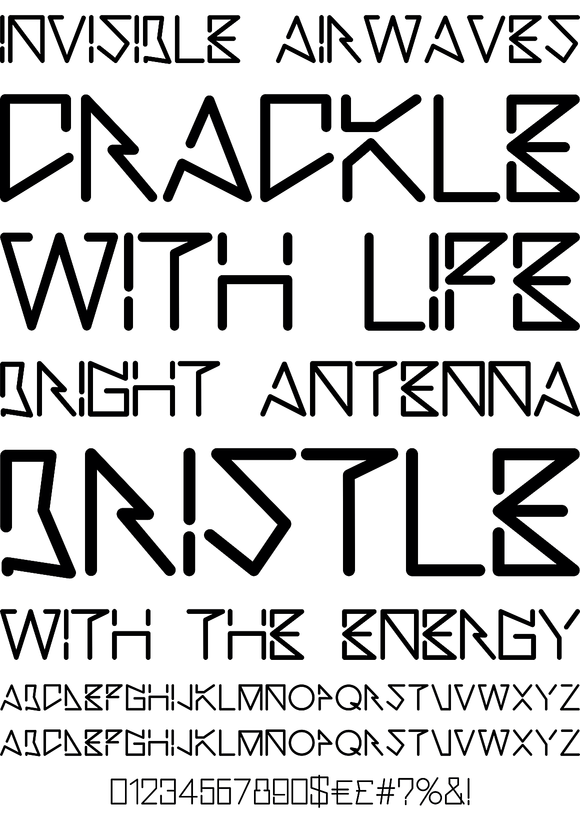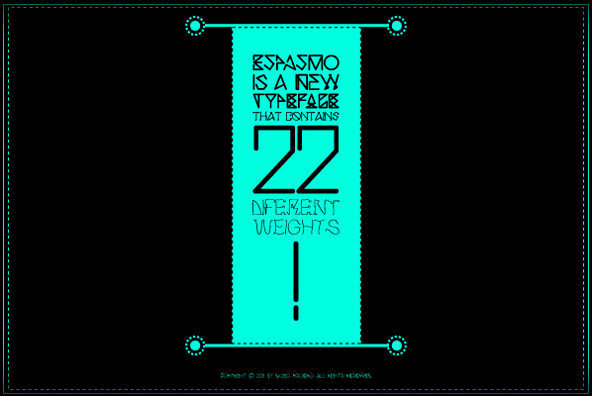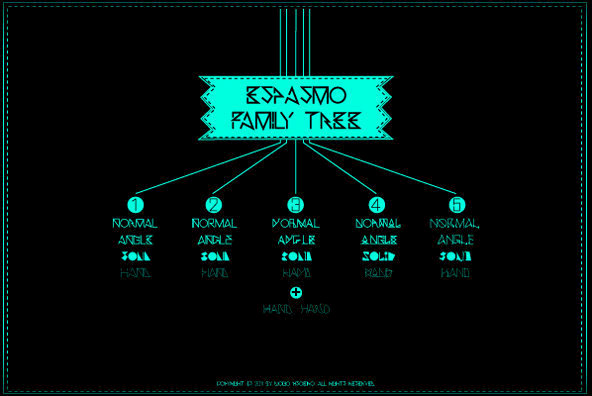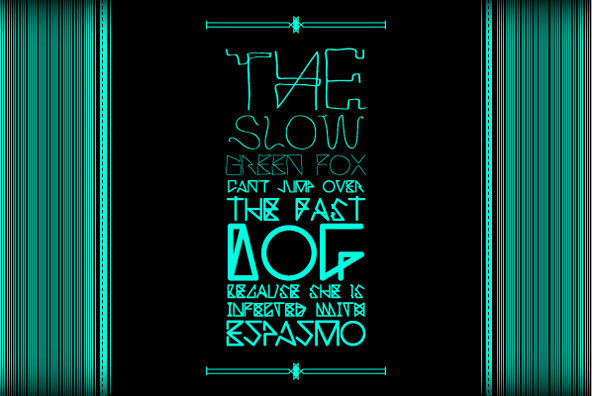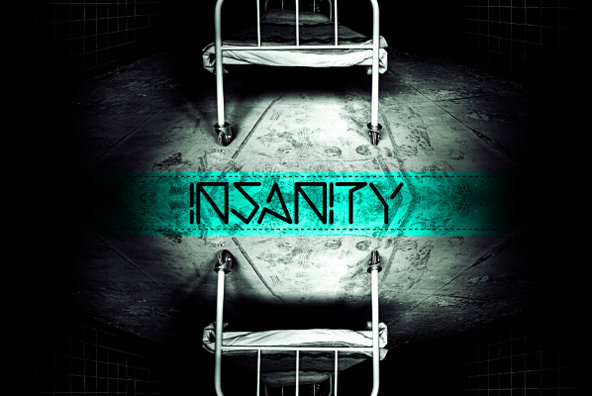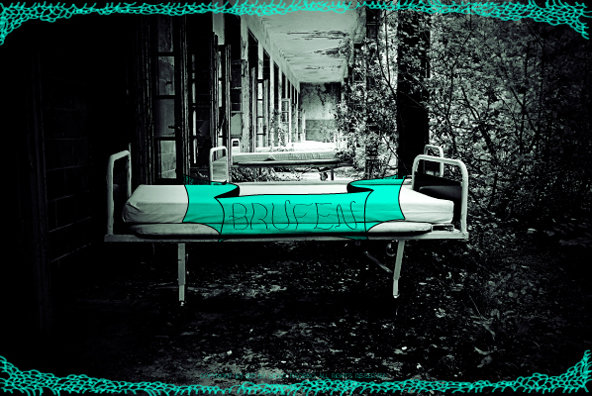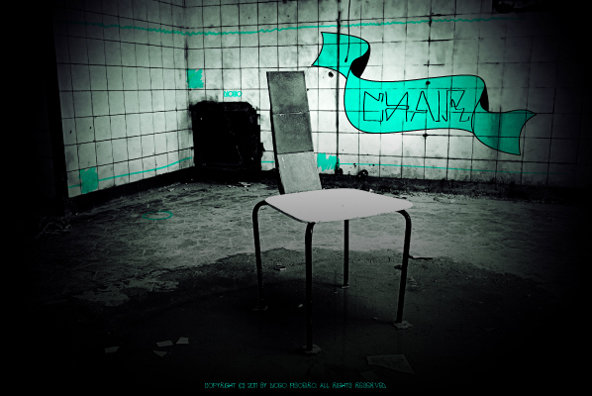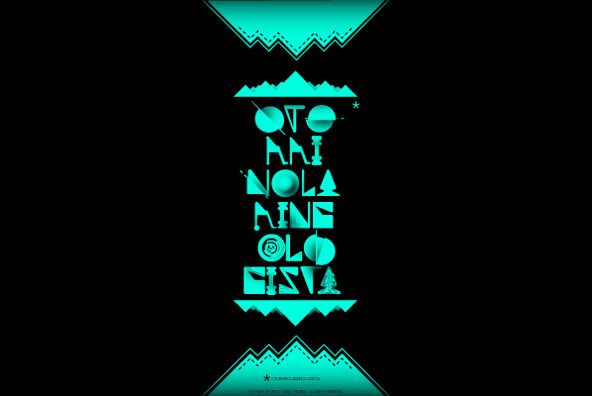
Espasmo is a new typeface, that was designed to be a good tool for any designer. Is an experimental font and it fits well on any kind of design because it has 22 different weights.